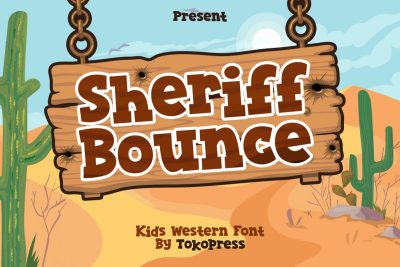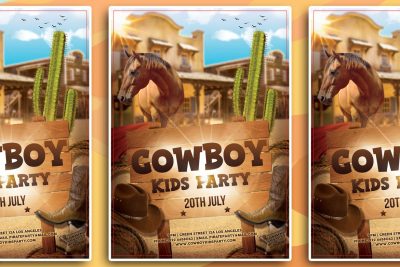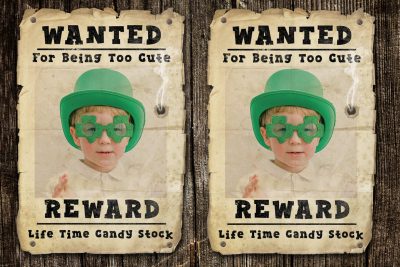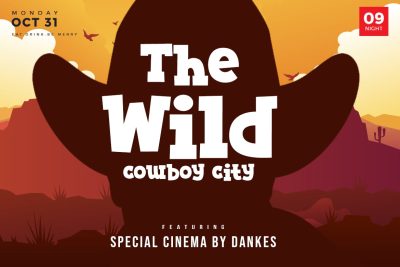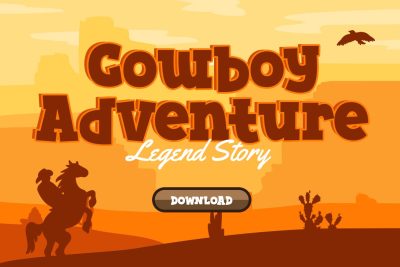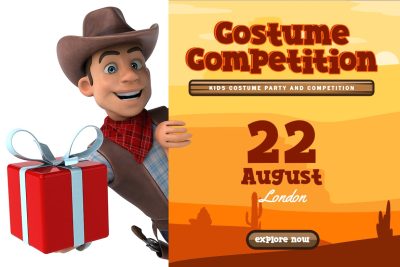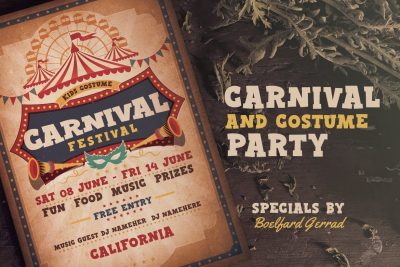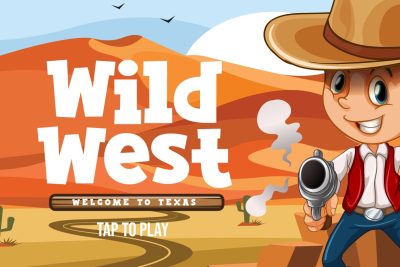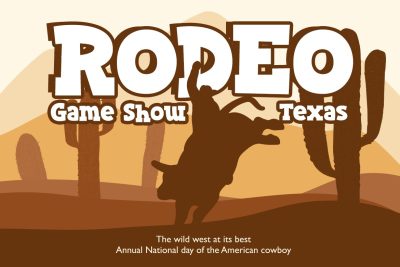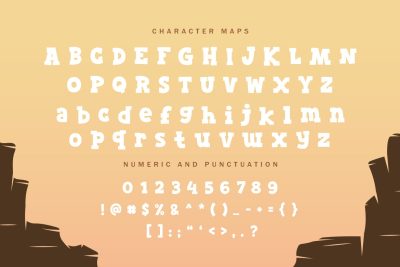
Western Font Sheriff Bounce is a bold and dynamic typeface. It combines rustic charm with modern playfulness. The font features thick, rounded letterforms and playful bounce effects, which create a lively and energetic feel. Inspired by classic Wild West imagery, it evokes a sense of adventure. Moreover, the font stands out with bold strokes and quirky curves. This makes it capture attention and leave a lasting impression. Whether used for large text or smaller captions, it remains strong and clear. Additionally, the rounded design adds fun, while the easy-to-read letters ensure clarity. As a result, this font is highly versatile for many creative projects.
Furthermore, its Western theme brings unique flair to your designs. It gives your content character and charm. You can use it for posters, websites, or logos to stand out. In fact, the font works well for both print and digital formats. Because of its distinctive look, itโs perfect for any project aiming to convey energy and excitement. With this font, your message will certainly never blend in.
Western Font Sheriff Bounce Perfect for Kids Market, Online Games, and More
Sheriff Bounce fits a variety of projects. For example, itโs a great choice for the kids market. Its bold, bouncy style naturally attracts younger audiences. It also works well for children’s products like toys, books, and animations. In online games, it excels for titles, logos, and loading screens. Consequently, the font gives a fun, adventurous vibe to any game.
In addition, itโs perfect for stationery, such as notebooks, planners, and greeting cards. The fun design appeals to kids and young adults, making school supplies more exciting. Similarly, merchandise like t-shirts, bags, and hats can benefit from this bold, playful look. Therefore, it ensures products stand out.
Moreover, this font is great for large media formats like posters and movie titles. It easily captures attention in YouTube covers and thumbnails. Furthermore, use it to create eye-catching social media page covers. Whether for a Western or adventure-themed project, this font brings personality and fun. Ultimately, it adds charm and energy to every design. No matter where you use it, Western Font Sheriff Bounce will certainly make a bold statement.